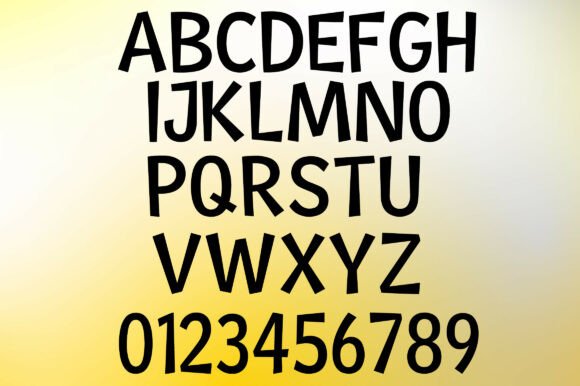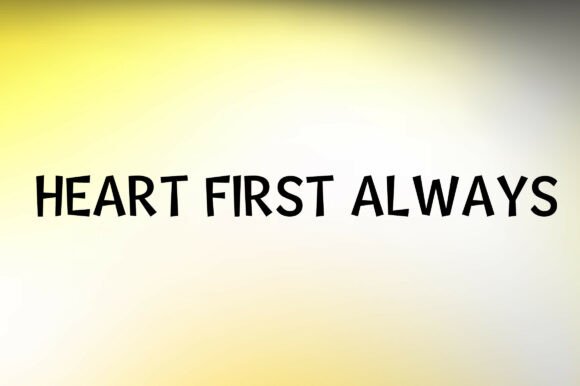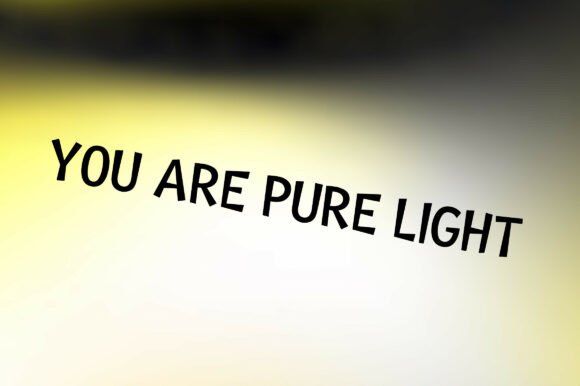
Introducing Blake Font: A Masterclass in Angular Elegance
In the world of typography, a font can make all the difference in the aesthetic and tone of a design project. For designers and crafters seeking a simple yet elegant solution, Blake Font emerges as a versatile and captivating choice. This angular design font seamlessly blends letter thicknesses to achieve a minimalist look that’s both sophisticated and fun.
The Essence of Blake Font
Blake Font is characterized by its unique angular design, where the careful blending of letter thicknesses creates a visually appealing contrast. This distinctive feature allows it to stand out in various creative applications, from digital media to print materials. Its simplicity and elegance make it an ideal choice for designers looking to convey a sense of modernity and refinement.
Versatility at Its Core
One of the key strengths of Blake Font is its versatility. Available in uppercase English letters (A-Z) and numbers (0-9), this font offers a wide range of creative possibilities. Whether you’re working on a branding project, a website, or a crafting endeavor, Blake Font can adapt to your needs, providing a consistent and stylish visual identity.
Design and Craft Applications
Blake Font’s adaptability makes it suitable for various design and craft applications. Here are a few examples:
- Branding and Logos: Use Blake Font to create a memorable and elegant brand identity that stands out.
- Web Design: Enhance your website’s typography with a font that offers a perfect balance of readability and style.
- Digital Marketing Materials: From brochures to social media graphics, Blake Font can elevate your marketing materials with its modern look.
- Crafting and DIY Projects: Add a personal touch to your crafting projects, such as handmade cards, invitations, or decorative items, with the unique style of Blake Font.
Why Choose Blake Font?
There are several reasons why Blake Font should be your go-to choice for your next design or crafting project:
- Elegant and Minimalist: Blake Font offers a clean and sophisticated look that’s perfect for projects requiring a touch of elegance.
- Highly Versatile: Its adaptability across different mediums and applications makes it a valuable addition to any designer’s toolkit.
- Easy to Read: Despite its angular design, Blake Font maintains excellent readability, making it suitable for both headings and body text.
- Expressive and Fun: The font’s unique design allows for creative expression without limits, making your projects stand out.
How to Use Blake Font Effectively
To maximize the impact of Blake Font, consider the following tips:
- Pair with Complementary Fonts: Combine Blake Font with other fonts that complement its style to create visual interest and hierarchy in your designs.
- Experiment with Colors: While Blake Font’s design shines in black and white, experimenting with colors can add another layer of creativity to your projects.
- Play with Sizes: Utilize different font sizes to emphasize certain elements and create a dynamic visual flow.
Blake Font is more than just a typeface; it’s a design statement that combines angular elegance with versatility. Whether you’re a professional designer or a crafting enthusiast, this font offers a simple yet powerful tool to express your creativity and enhance your projects. With its availability in uppercase English letters and numbers, Blake Font is ready to bring a touch of modern sophistication and fun to your designs. Explore the possibilities with Blake Font and discover how it can elevate your creative endeavors.